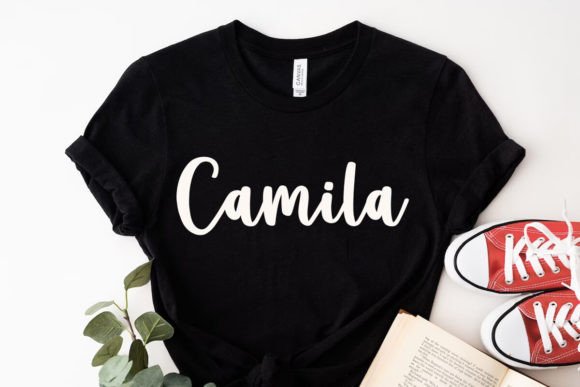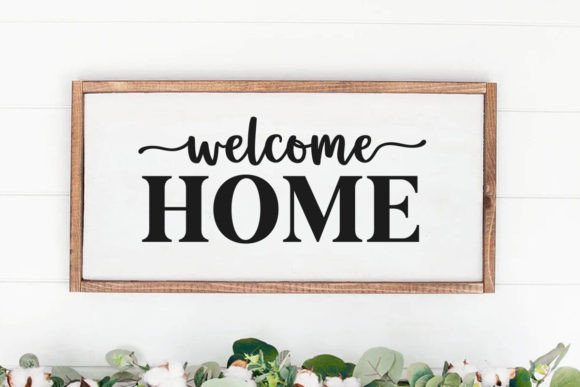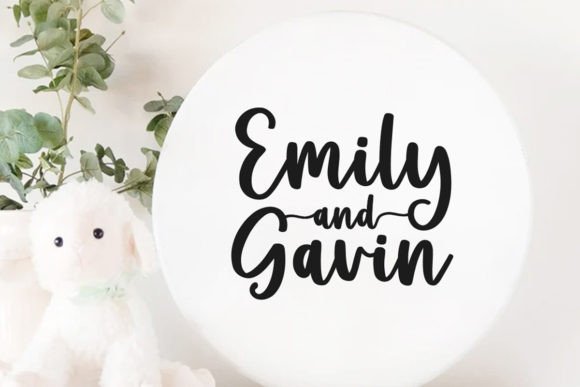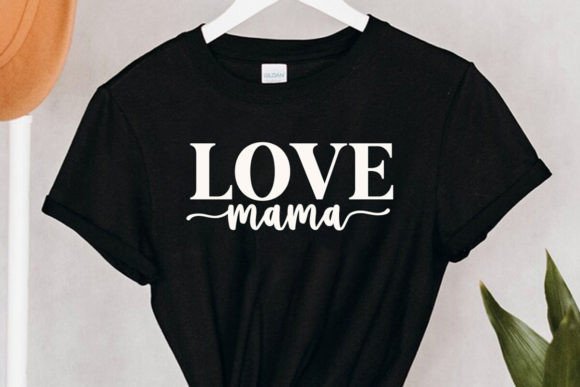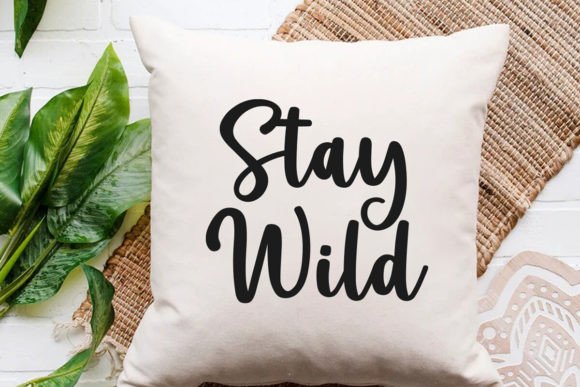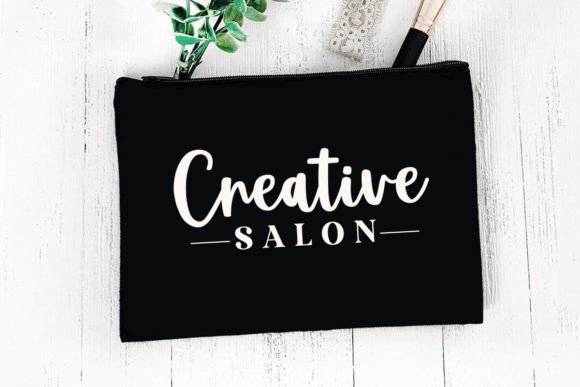
Gentry Font: Elevate Your Designs with Modern Elegance
In the world of typography, a font can make or break a design. For designers and crafters looking to add a touch of sophistication and style to their projects, the Gentry Font is an excellent choice. This modern, stylish, and flowing handwritten script font is designed to turn heads and leave a lasting impression.
The Characteristics of Gentry Font
Gentry Font is a beautifully crafted handwritten script font that boasts elegant tails, making it perfect for a wide range of design applications. Its characters are meticulously designed to be well-balanced, ensuring that the font flows smoothly and consistently across various mediums. This attention to detail makes Gentry Font an excellent match for numerous designs, from logos and branding to quotes and creative projects.
Why Choose Gentry Font?
So, what sets Gentry Font apart from other fonts in the market? Here are a few reasons why designers and crafters are gravitating towards this stunning font:
- Modern and Stylish: Gentry Font embodies the perfect blend of modernity and style. Its flowing script and elegant tails give it a fresh and contemporary look that’s sure to captivate audiences.
- Versatile: Whether you’re working on a logo, branding project, or quote, Gentry Font adapts seamlessly to different design requirements. Its versatility makes it an invaluable asset in any designer’s toolkit.
- Eye-Catching: With Gentry Font, creating eye-catching designs has never been easier. Its unique and stylish appearance ensures that your projects stand out from the crowd, making it perfect for designers looking to make a statement.
Applications of Gentry Font
The possibilities are endless when it comes to using Gentry Font. Here are some of the most popular applications:
- Logo Design: Create memorable and impactful logos that leave a lasting impression on your audience. Gentry Font’s elegant and modern design makes it perfect for logos that require a touch of sophistication.
- Branding: Establish a strong brand identity with Gentry Font. Its consistent and flowing script ensures that your brand’s message is conveyed with style and elegance.
- Quotes and Typography: Add a touch of elegance to your quotes and typography projects. Gentry Font’s beautiful characters and flowing script make it perfect for showcasing inspirational quotes, sayings, and phrases.
Tips for Using Gentry Font Effectively
To get the most out of Gentry Font, here are some tips to keep in mind:
- Pair it with Simple Backgrounds: Let Gentry Font be the focal point of your design by pairing it with simple backgrounds. This allows the font’s elegance and style to shine through.
- Experiment with Colors: Don’t be afraid to experiment with different colors to find the perfect match for your design. Gentry Font’s versatility makes it easy to pair with a wide range of color schemes.
- Use it Sparingly: While Gentry Font is stunning, it’s essential to use it sparingly to avoid overwhelming your design. Use it for headings, titles, or key phrases to create a lasting impact.
In conclusion, Gentry Font is a modern, stylish, and flowing handwritten script font that’s perfect for designers and crafters looking to elevate their designs. Its elegant tails, well-balanced characters, and versatility make it an excellent choice for a wide range of design applications. Whether you’re working on a logo, branding project, or quote, Gentry Font is sure to make your designs come alive. So why wait? Add Gentry Font to your toolkit today and experience the power of beautiful typography!